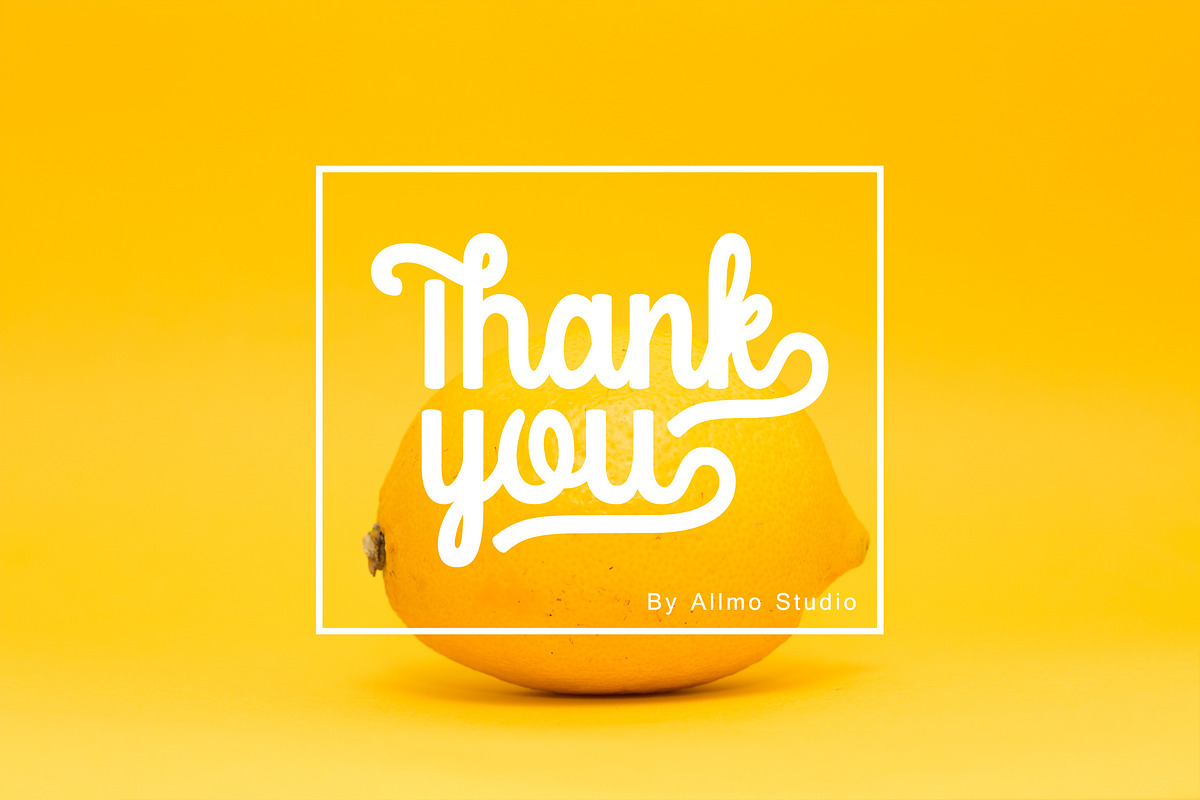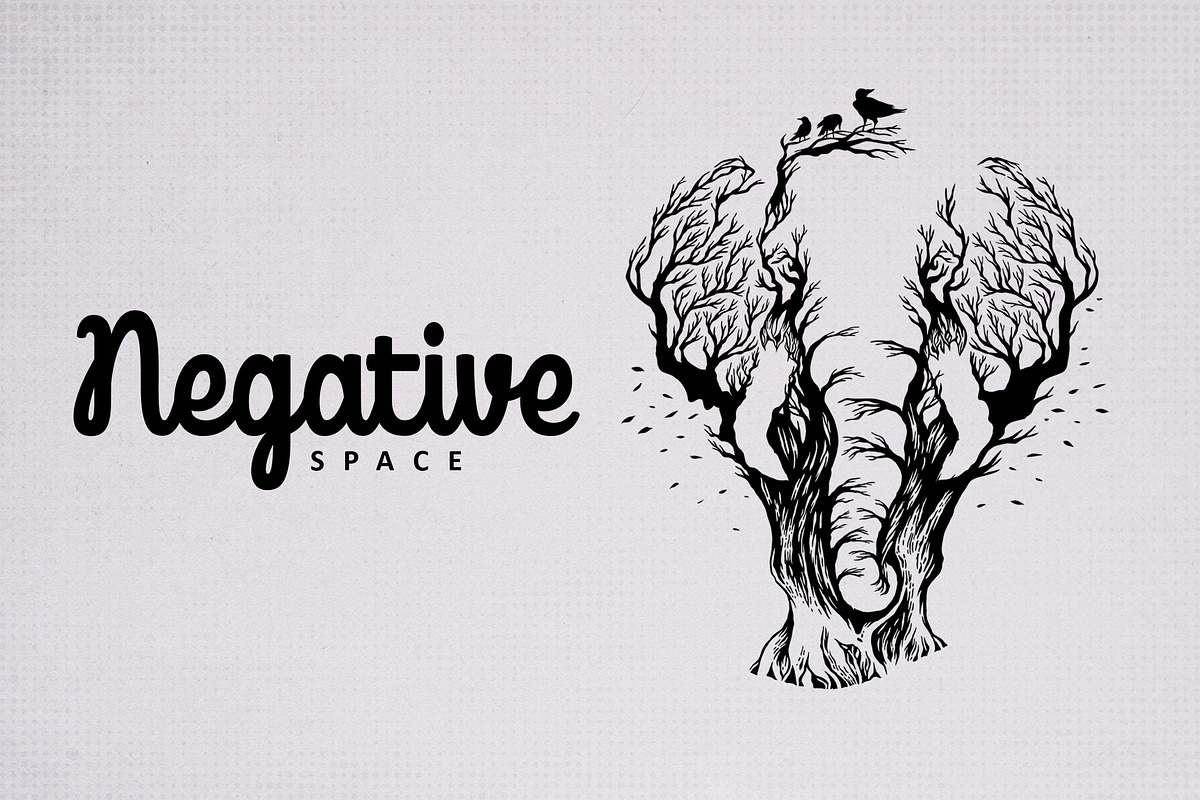
Mondella
Introducing our latest creation, Mondella Font with two choices uppercase for good combination. Perfect for branding, 2 different style that allow you to make a great custom combination of lettering designs. These fonts are included with some features such like alternates, and ligatures to give you more option and accessible in Adobe Photoshop, Illustrator, CorelDraw, etc.
Mondella Font These vintage minimalism font, are great for your any design project such like vintage logo, store font, clothing brand, label design, wedding design, quotes, craft and much more.
Mondella Font comes with complete basic glyphs composition
.Uppercase .Lowercase .Numbers .Symbols .Basic international languages .Stylistic alternates .Ligatures